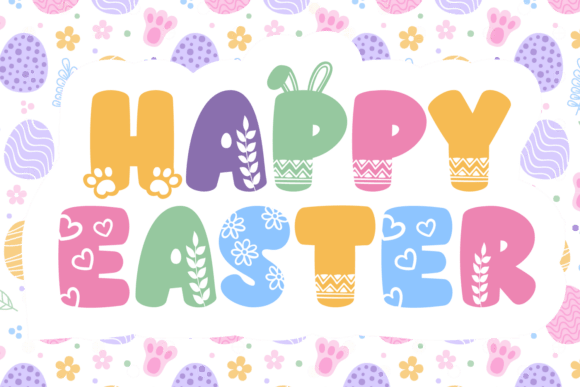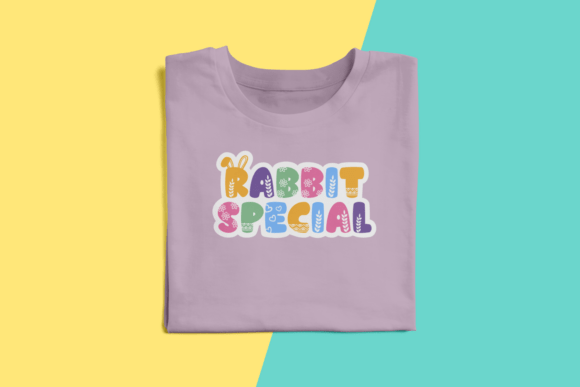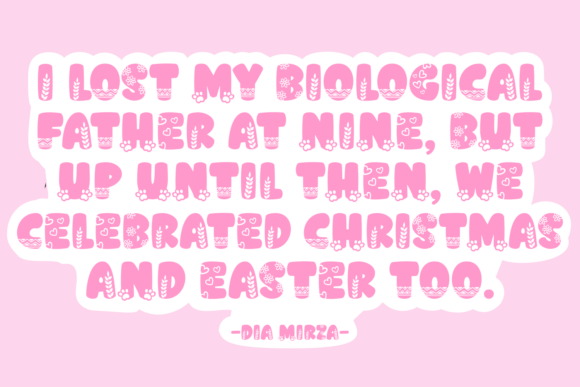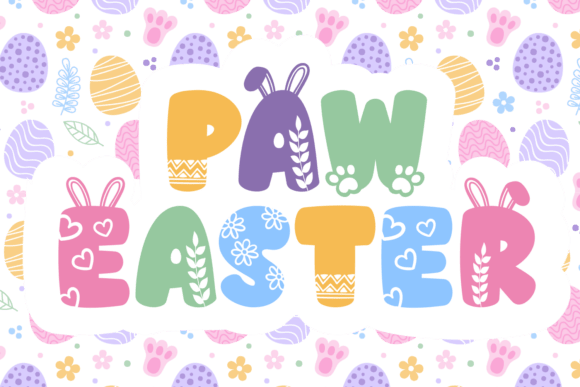
Introduction to Paw Easter Font
Where Easter joy meets fluffy paws and playful charm.
Paw Easter is a fun, festive display font perfect for celebrating the sweet side of springtime Every letter is filled with joyful Easter-themed details bunny ears, paw prints, hearts, flowers, and decorative patterns that bring a delightful touch to your seasonal designs.
Paw Easter Font offers exceptional quality and versatility, making it a valuable addition to your design toolkit. Whether you’re creating for personal projects or commercial use, Paw Easter Font delivers professional results.